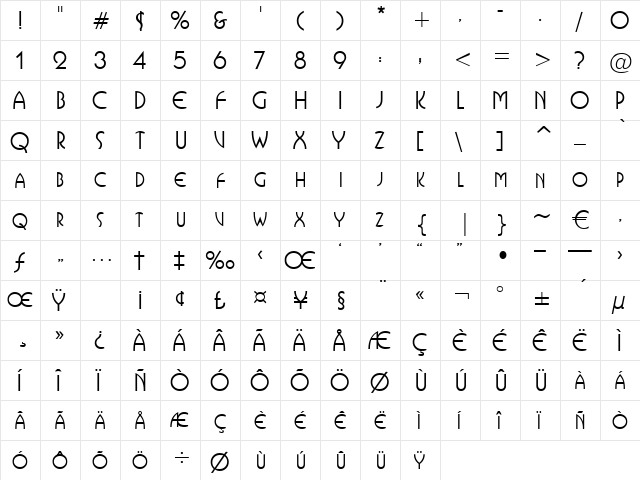
Atlantis Regular
Design Context for Atlantis Typeface
Atlantis is a composed and adaptable typeface that performs quietly and consistently across a wide range of design contexts.